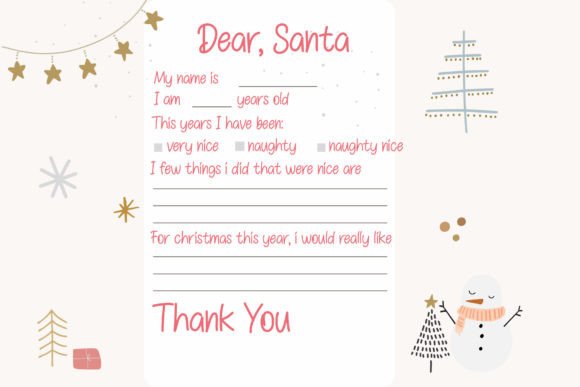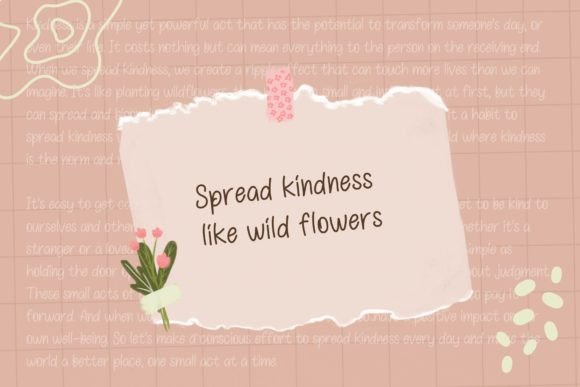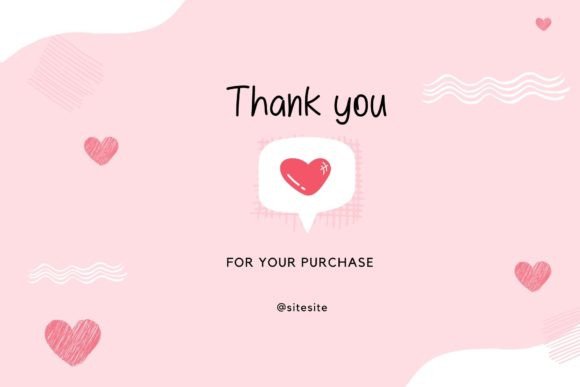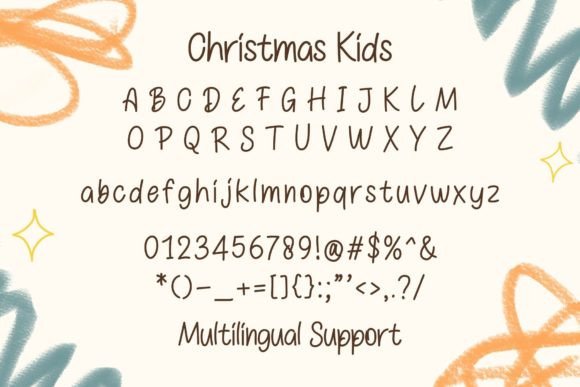
Introducing Christmas Kids Font: A Whimsical Addition to Your Holiday Designs
Are you looking for a font that captures the essence of Christmas and brings a touch of magic to your designs? Look no further than Christmas Kids Font, a cute, unique, and friendly display font that’s perfect for adding a modern yet whimsical style to your holiday projects.
What Makes Christmas Kids Font So Special?
Christmas Kids Font is a one-of-a-kind display font that’s designed to transport your designs to a magical world. Its modern yet whimsical style makes it an ideal choice for various Christmas and New Year design purposes, from festive greeting cards and invitations to holiday-themed posters and social media graphics.
Key Features of Christmas Kids Font
- Cute and Friendly Design: Christmas Kids Font features a playful and approachable design that’s sure to delight both kids and adults alike.
- Modern yet Whimsical Style: The font’s modern style is perfectly balanced with a whimsical touch, making it ideal for holiday designs that require a dash of magic.
- Perfect for Christmas and New Year Designs: Whether you’re creating festive greeting cards, holiday-themed posters, or social media graphics, Christmas Kids Font is the perfect choice.
- Easy to Read and Use: The font is designed to be easy to read and use, making it perfect for designers and crafters of all skill levels.
How to Use Christmas Kids Font in Your Designs
Christmas Kids Font is incredibly versatile and can be used in a variety of design projects, including:
- Festive Greeting Cards: Add a personal touch to your holiday greeting cards with Christmas Kids Font.
- Holiday-Themed Posters: Create eye-catching posters for your holiday events or promotions using Christmas Kids Font.
- Social Media Graphics: Add some holiday cheer to your social media graphics with Christmas Kids Font.
- Invitations and Party Decor: Use Christmas Kids Font to create festive invitations and party decor that will delight your guests.
Benefits of Using Christmas Kids Font
By using Christmas Kids Font in your designs, you’ll enjoy a range of benefits, including:
- Unique and Eye-Catching Designs: Christmas Kids Font will help you create unique and eye-catching designs that stand out from the crowd.
- Time-Saving: The font’s easy-to-read design and versatile style make it a time-saving solution for your holiday design needs.
- Professional-Looking Results: With Christmas Kids Font, you can achieve professional-looking results without spending hours on design.
Tips and Tricks for Getting the Most Out of Christmas Kids Font
To get the most out of Christmas Kids Font, try the following tips and tricks:
- Experiment with Different Colors: Try pairing Christmas Kids Font with different colors to create unique and eye-catching designs.
- Use it with Other Fonts: Combine Christmas Kids Font with other fonts to create interesting and dynamic designs.
- Play with Size and Style: Experiment with different sizes and styles to add visual interest to your designs.
| Font Name | Christmas Kids Font |
| Author | Nox Studio |
Christmas Kids Font is a unique and versatile display font that’s perfect for adding a touch of magic to your holiday designs. With its modern yet whimsical style, cute and friendly design, and ease of use, it’s an ideal choice for designers and crafters of all skill levels. By using Christmas Kids Font in your designs, you’ll be able to create unique and eye-catching designs that will delight both kids and adults alike.